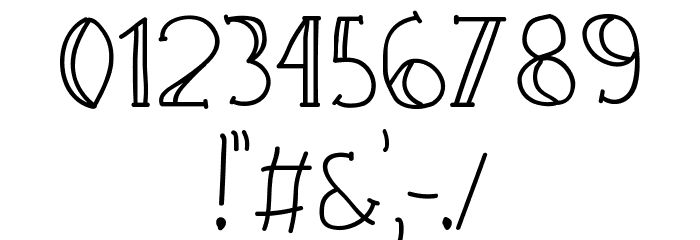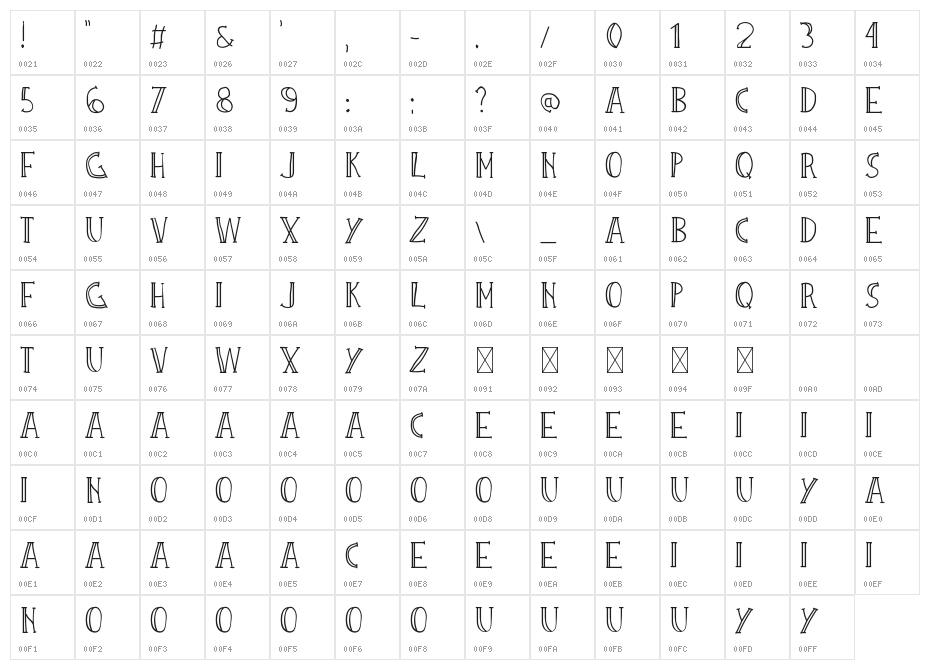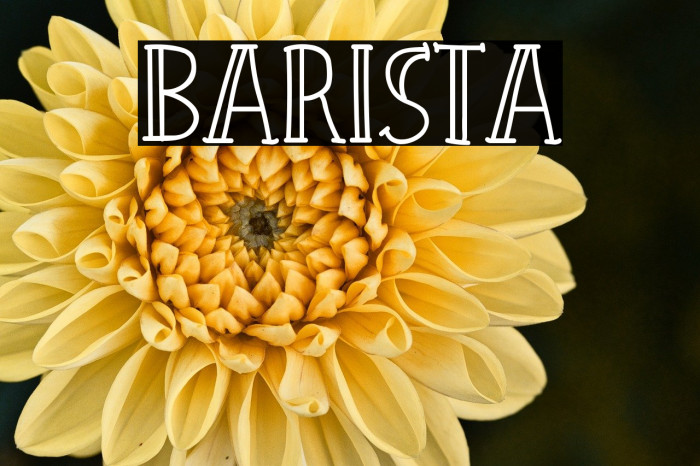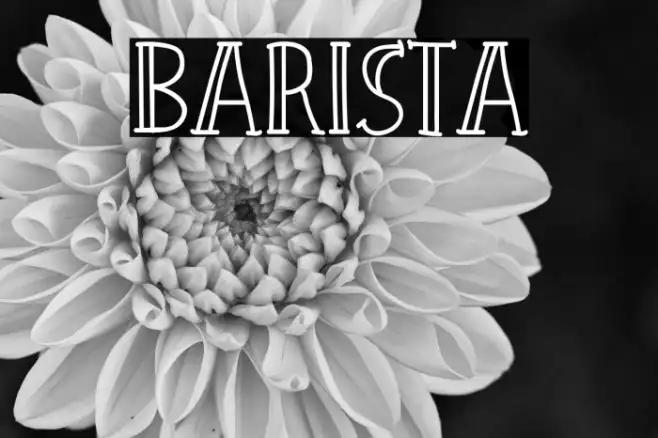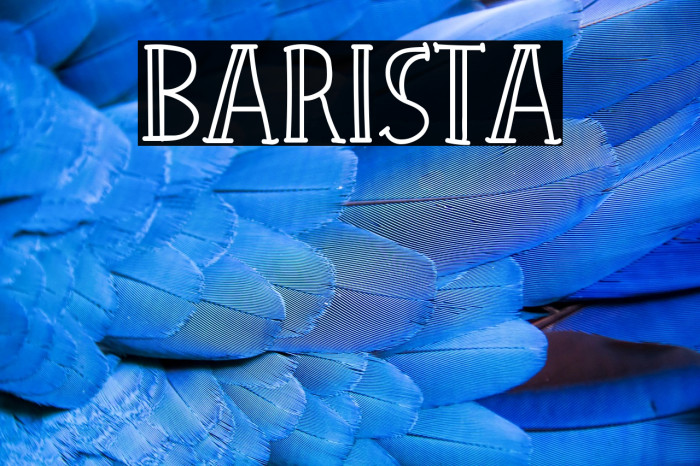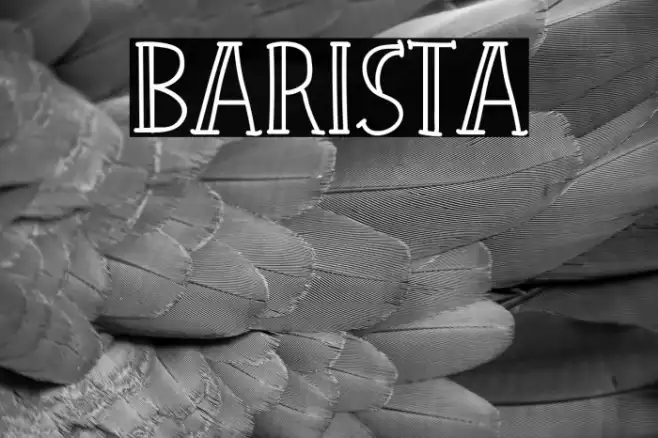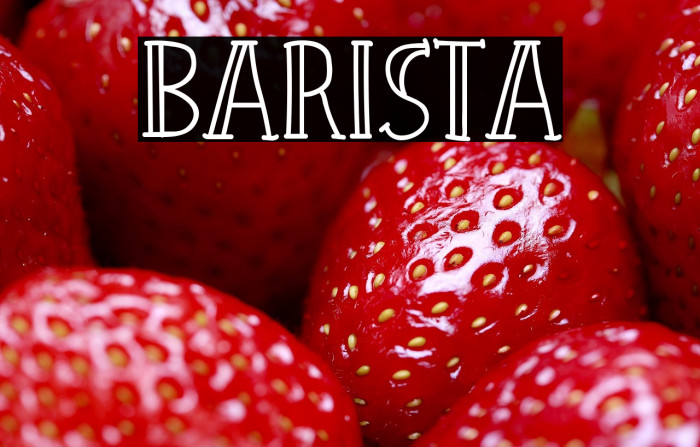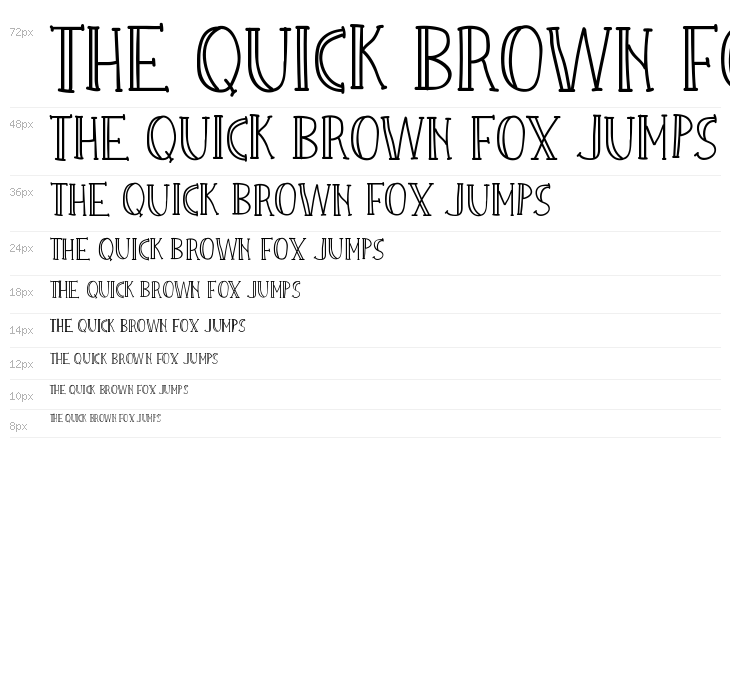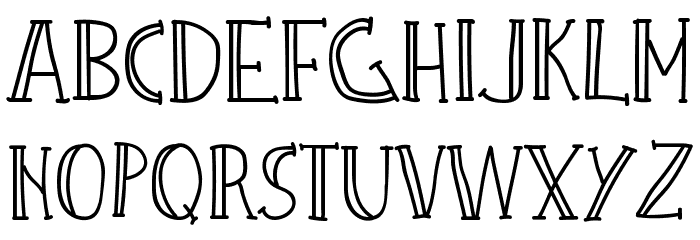
Barista Font
Barista Description
This font features a unique, decorative style with a playful yet elegant appearance. The characters are tall and narrow, with a distinct flair that makes them stand out. The uppercase letters have a consistent height, while the lowercase letters maintain a similar style with slightly less height. The numbers are bold and clear, matching the overall aesthetic. Special characters are creatively designed, adding to the font's charm. This font is perfect for projects that require a touch of sophistication and creativity.